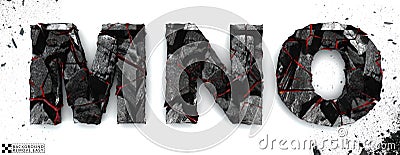
Coal Letters M, N, O.on White Background, 3d Rendering, Isolated. Ember Alphabet Isolated, Path Save, Font. Stock Image
Coal letters M, N, O.on white background, 3d rendering, isolated. Ember alphabet isolated, path save, font. #201991441
Coal letters M, N, O.on white background, 3d rendering, isolated. Ember alphabet isolated,